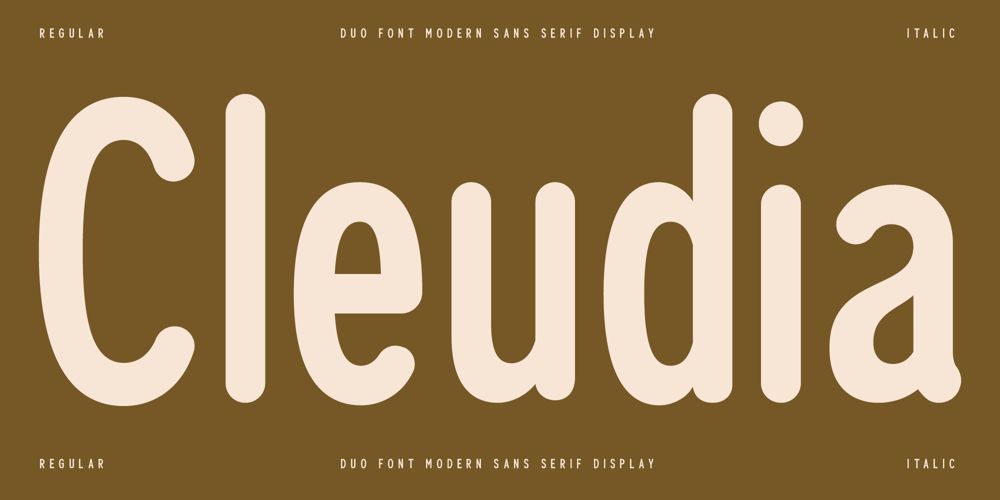
Cleudia Font Family was designed by Heru Utama Putra and published by Letterena Studios. Cleudia contains 2 styles and family package options. A serif modern and classic typeface that has its own unique style & modern look.This typeface is perfect for an elegant & luxury logo, book or movie title design, fashion brand, magazine, clothes, lettering, quotes, and so much more.